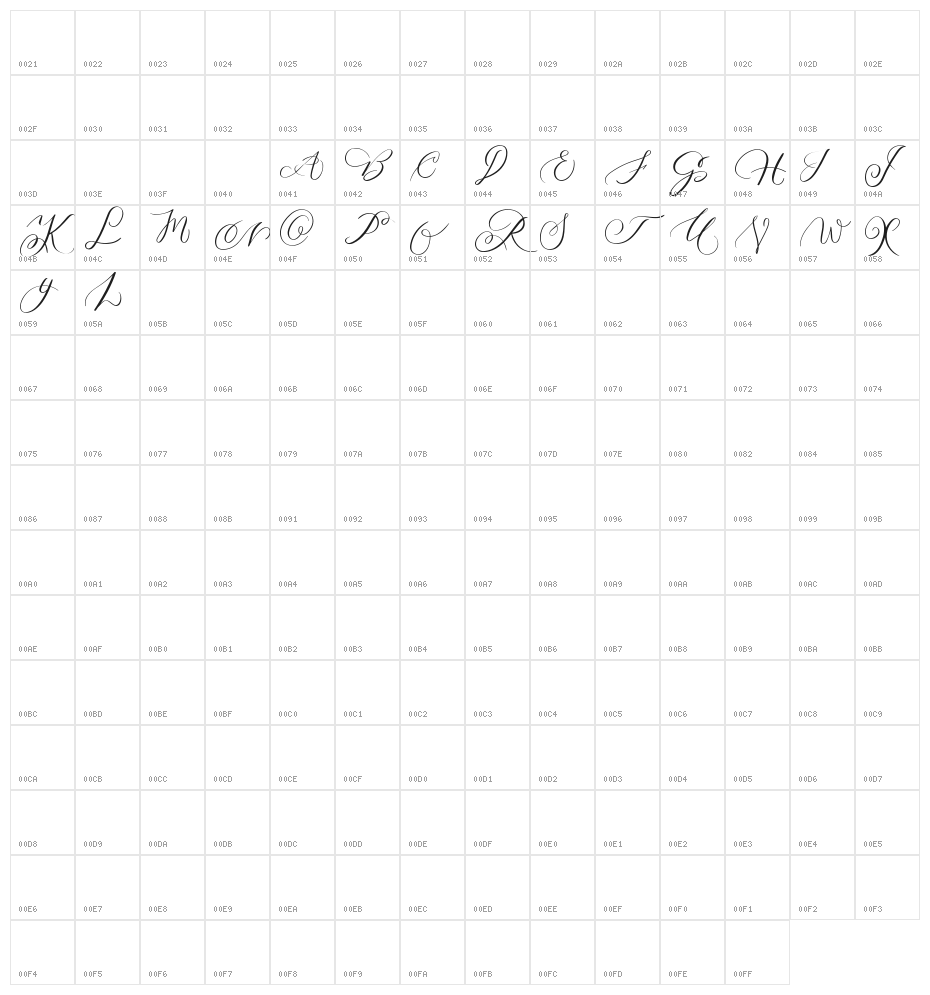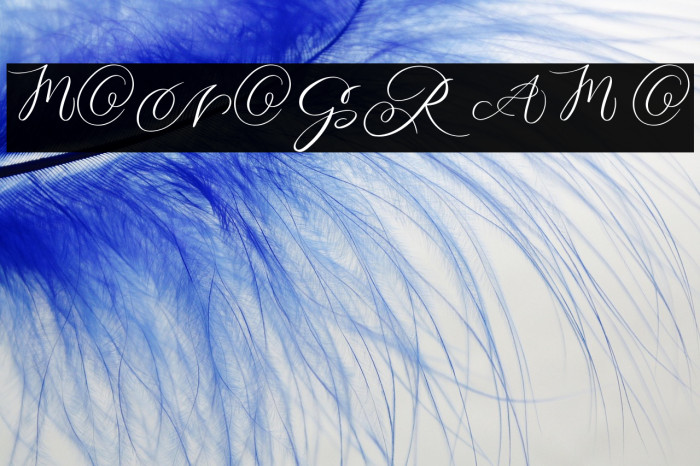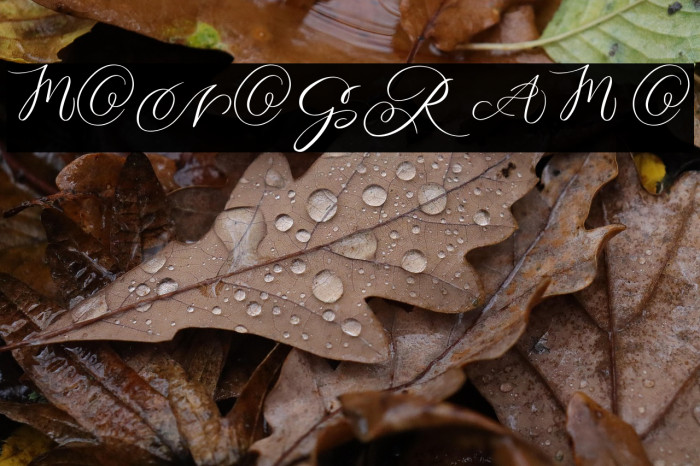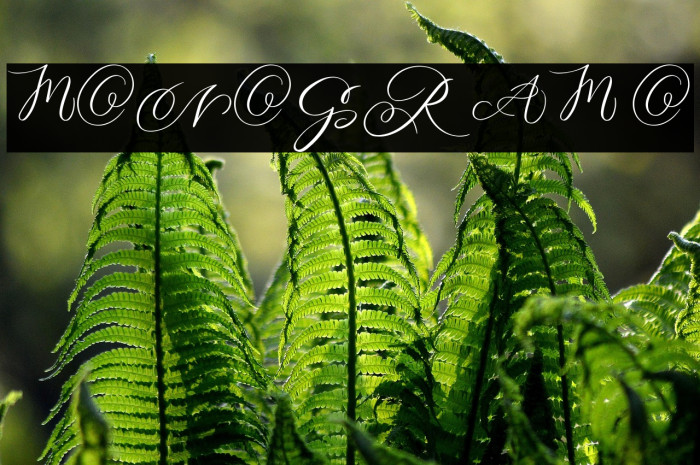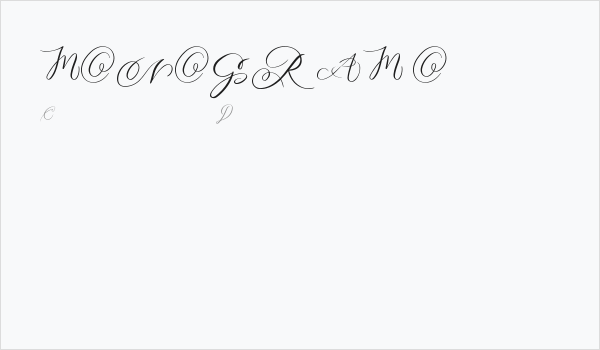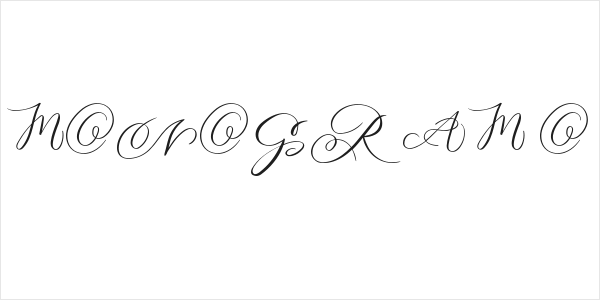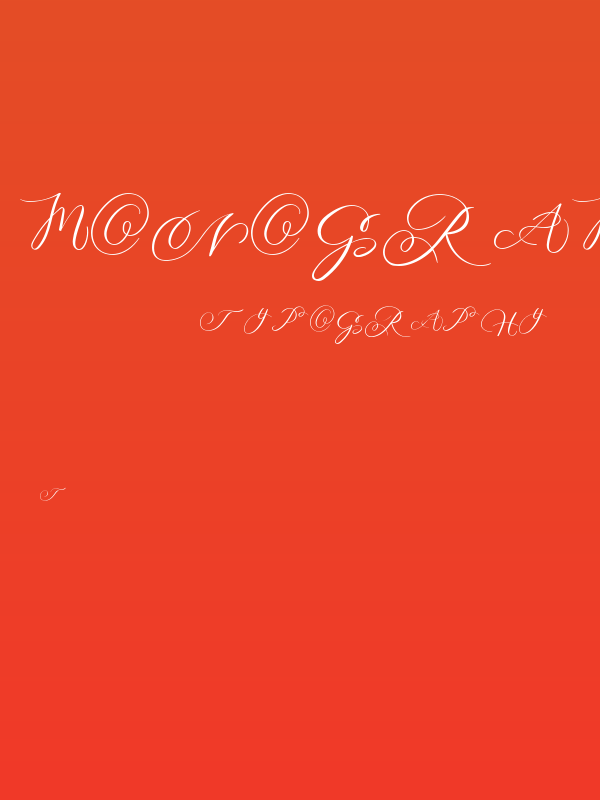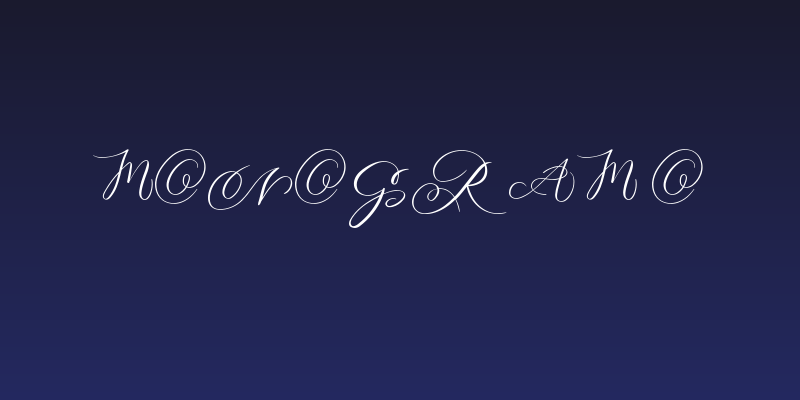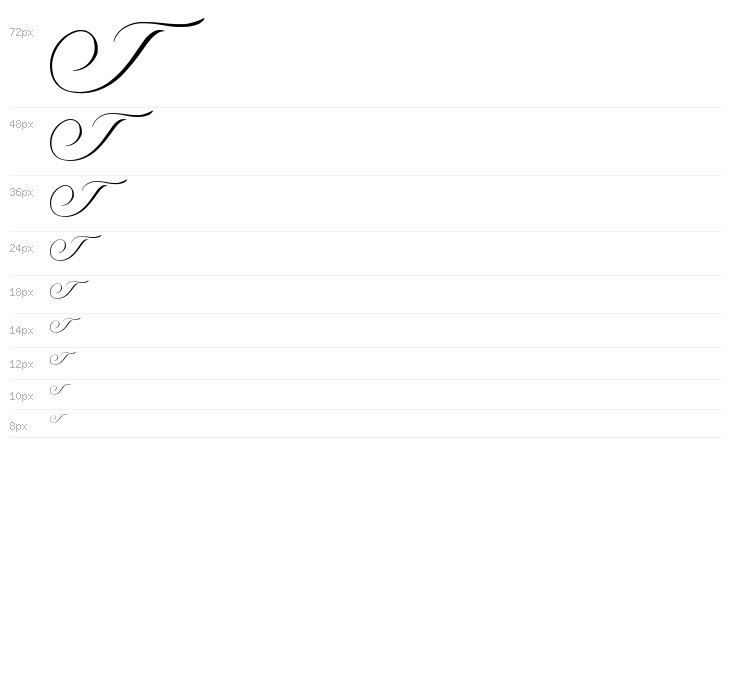
MONOGRAM O Font
MONOGRAM O Description
This elegant script font features intricate, flowing lines and a sophisticated style, reminiscent of classic calligraphy. Each letter is adorned with delicate swirls and loops, creating a sense of movement and grace. The uppercase letters are particularly ornate, with extended flourishes that add a touch of luxury and refinement. The overall appearance is both timeless and stylish, making it suitable for formal occasions and high-end branding. The font's delicate strokes and high contrast between thick and thin lines enhance its visual appeal, making it a perfect choice for projects that require a touch of elegance.
| Overall Style | Classic |
| Use Case | Logos, Invitations, Branding |
| Proposed Projects | Ideal for wedding invitations, luxury branding, elegant stationery, and high-end product packaging. |